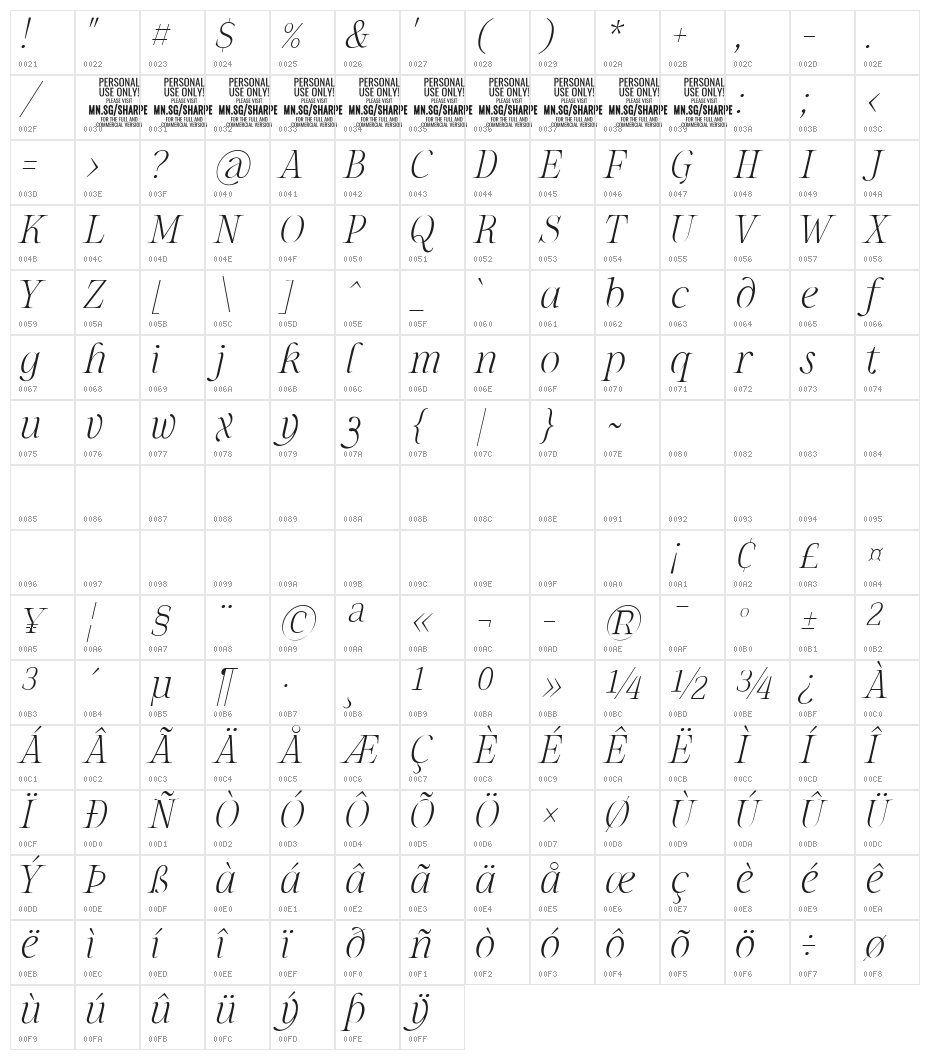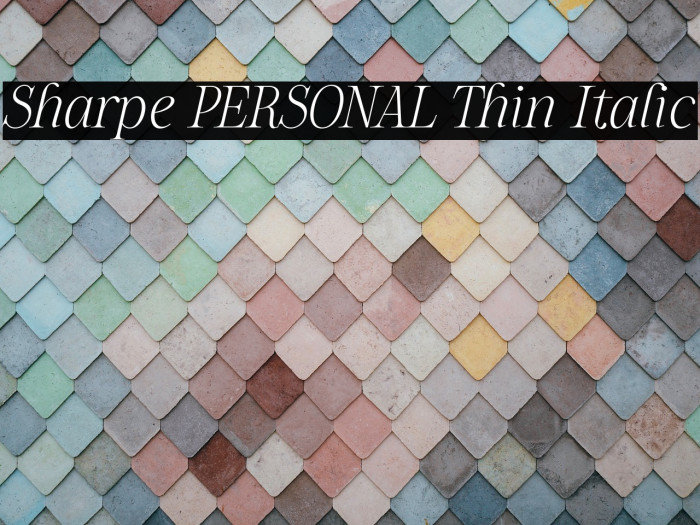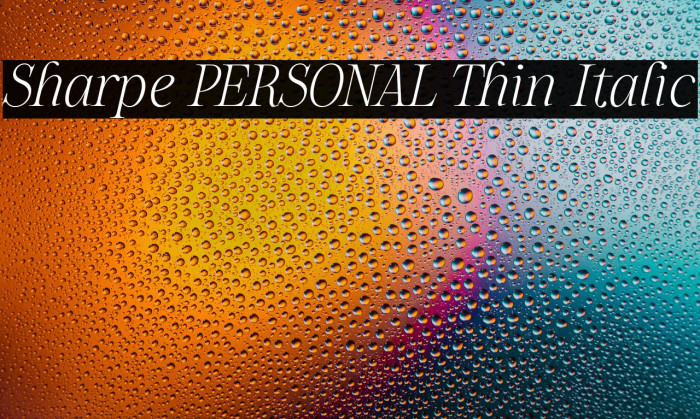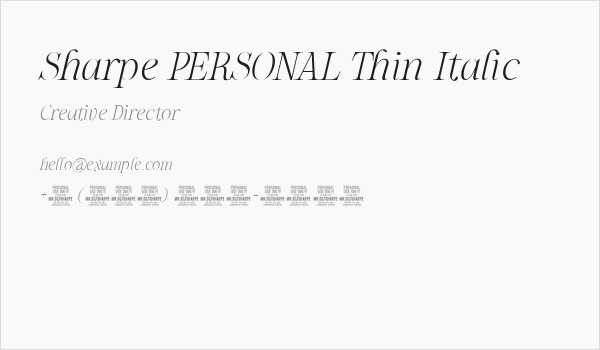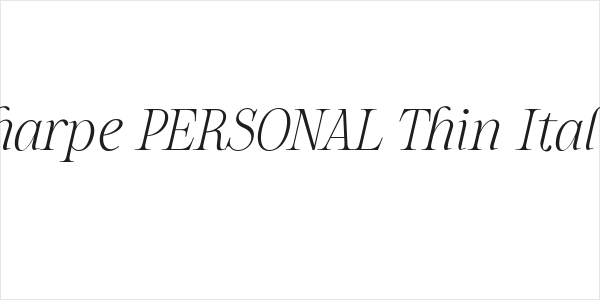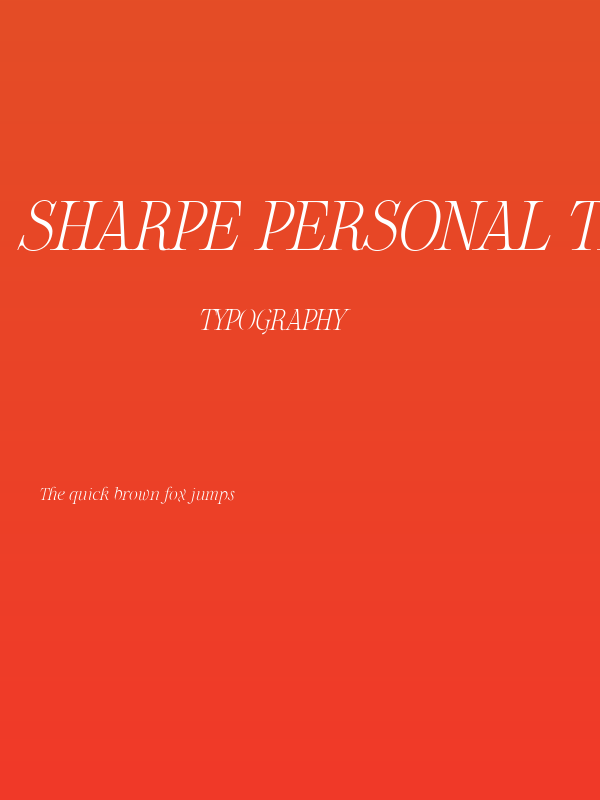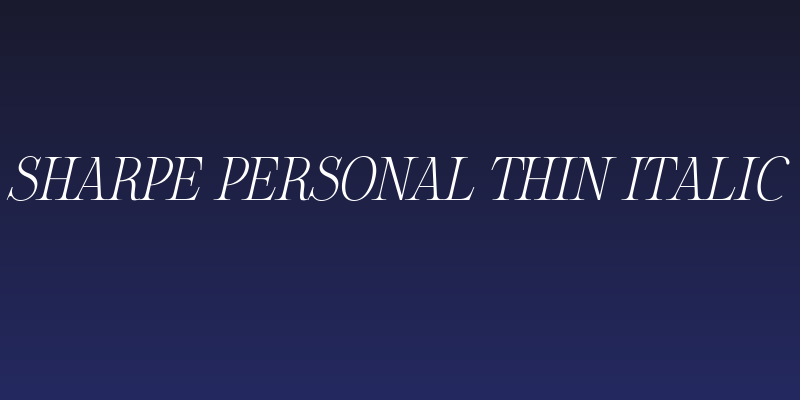
Sharpe PERSONAL Thin Italic Font
Sharpe PERSONAL Thin Italic Description
This font features an elegant and sophisticated design with a thin, italicized style. The characters exhibit a graceful flow, with smooth curves and a slight slant that adds a sense of movement and dynamism. The uppercase letters are tall and refined, while the lowercase letters maintain a consistent and harmonious appearance. The numerals and special characters are crafted with the same attention to detail, ensuring a cohesive look across all elements. This font's delicate strokes and refined aesthetic make it suitable for projects that require a touch of elegance and sophistication.
| Use Case | Logos, Invitations, Editorial Design |
| Proposed Projects | Ideal for wedding invitations, luxury branding, elegant posters, and editorial design. |